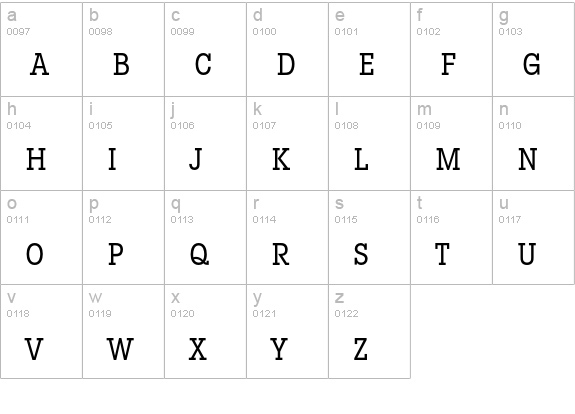
LubalinGraphEF-BookCondSC is a stylish and elegant font that exudes sophistication and modernity. With its sleek condensed design and timeless appeal, this font is perfect for adding a touch of class to any project. Its clean lines and unique letterforms make it stand out from the crowd, while still maintaining a sense of professionalism. And the best part? LubalinGraphEF-BookCondSC is available for free download at FontsMarket.com. Whether you're working on a branding project, a website design, or any other creative endeavor, this font is sure to elevate your work to the next level. Don't miss out on the opportunity to add this stunning font to your collection today!